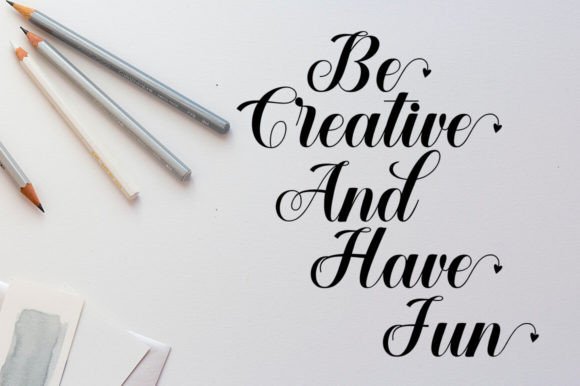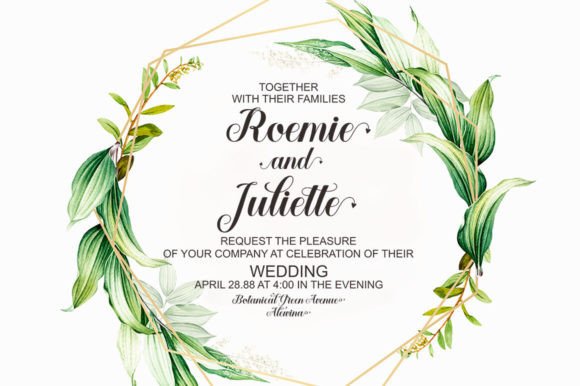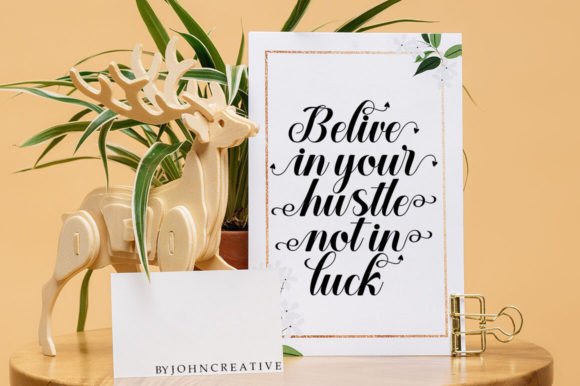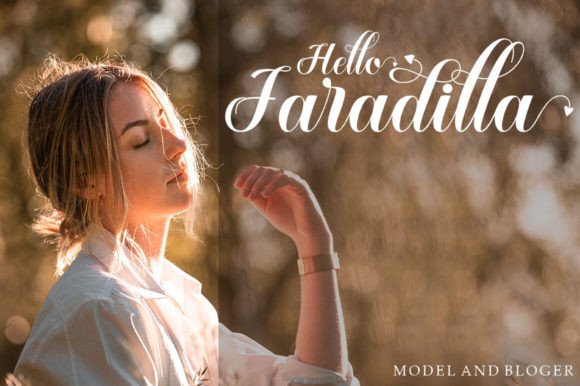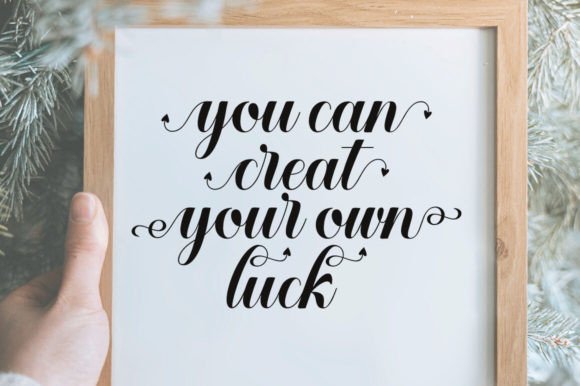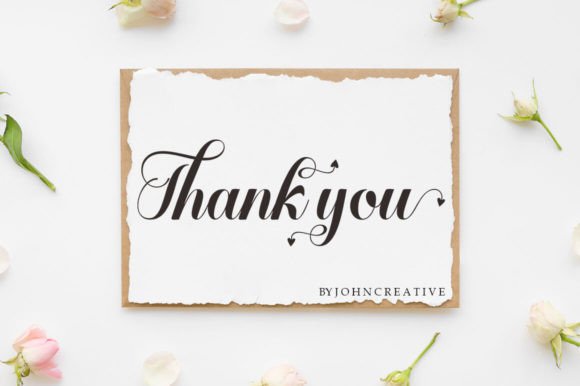
Baby Belanya Font: Elevate Your Designs with Elegance
In the world of typography, a font can make or break a design. For those seeking a touch of elegance and sophistication, the Baby Belanya font is a gem worth discovering. This flowing handwritten font, characterized by an elegant touch, is perfect for a variety of projects, from creative crafts to professional designs. Let’s dive into what makes Baby Belanya a must-have in your font collection.
The Charm of Baby Belanya
Baby Belanya is not just any font; it’s a statement piece. Its incredibly distinct and timeless style can instantly elevate your designs, making them stand out in a crowd. Whether you’re working on a logo, a banner, a wedding invitation, or any other project that requires a personal touch, Baby Belanya’s elegant flow and handwritten charm can add a layer of sophistication and warmth.
One of the standout features of the Baby Belanya font is its PUA (Private Use Area) encoding. This means that accessing all the glyphs and ligatures is incredibly straightforward. Designers and crafters can easily navigate through the font’s extensive features without any hassle, making the design process smoother and more enjoyable. With PUA encoding, you’re not just getting a font; you’re getting a comprehensive toolset to bring your creative visions to life.
The versatility of the Baby Belanya font is another reason it’s a favorite among designers and crafters. Its flowing script can add a touch of elegance to:
- Wedding invitations and event announcements
- Social media graphics and blog headers
- Product packaging and labels
- Art and craft projects
No matter the project, Baby Belanya can adapt, bringing a level of consistency and style that’s hard to achieve with more generic fonts.
Why Choose Baby Belanya?
With so many fonts available, why should Baby Belanya be your go-to choice? The answer lies in its unique blend of elegance, readability, and charm. It’s not just about making a statement; it’s about connecting with your audience on a more personal level. The font’s timeless appeal ensures that your designs won’t look dated anytime soon, saving you the cost and hassle of frequent redesigns.
How to Get the Most Out of Baby Belanya
To truly leverage the potential of the Baby Belanya font, consider the following tips:
- Experiment with Sizes: Play around with different sizes to see how the font looks in various contexts. Its elegance shines through at larger sizes, but it remains legible even at smaller sizes.
- Pair It Wisely: Don’t be afraid to pair Baby Belanya with other fonts for contrast. Its script style pairs well with sans-serif fonts for a modern look or with serif fonts for a more traditional feel.
- Utilize Ligatures: Take advantage of the font’s ligatures to add a natural flow to your text. Ligatures can make your text look more handwritten and less uniform, adding to the font’s charm.
Baby Belanya is more than just a font; it’s a design statement. Its elegant, flowing script and timeless appeal make it an excellent choice for anyone looking to add a touch of sophistication to their projects. With its PUA encoding for easy access to glyphs and ligatures, versatility across various design applications, and the ability to connect with audiences on a personal level, Baby Belanya is poised to become your new favorite font. Whether you’re a professional designer or a crafting enthusiast, Baby Belanya can help you create spectacular designs that stand out.
So, fall in love with the distinct style of Baby Belanya and let it transform your designs into elegant pieces of art that captivate and inspire.